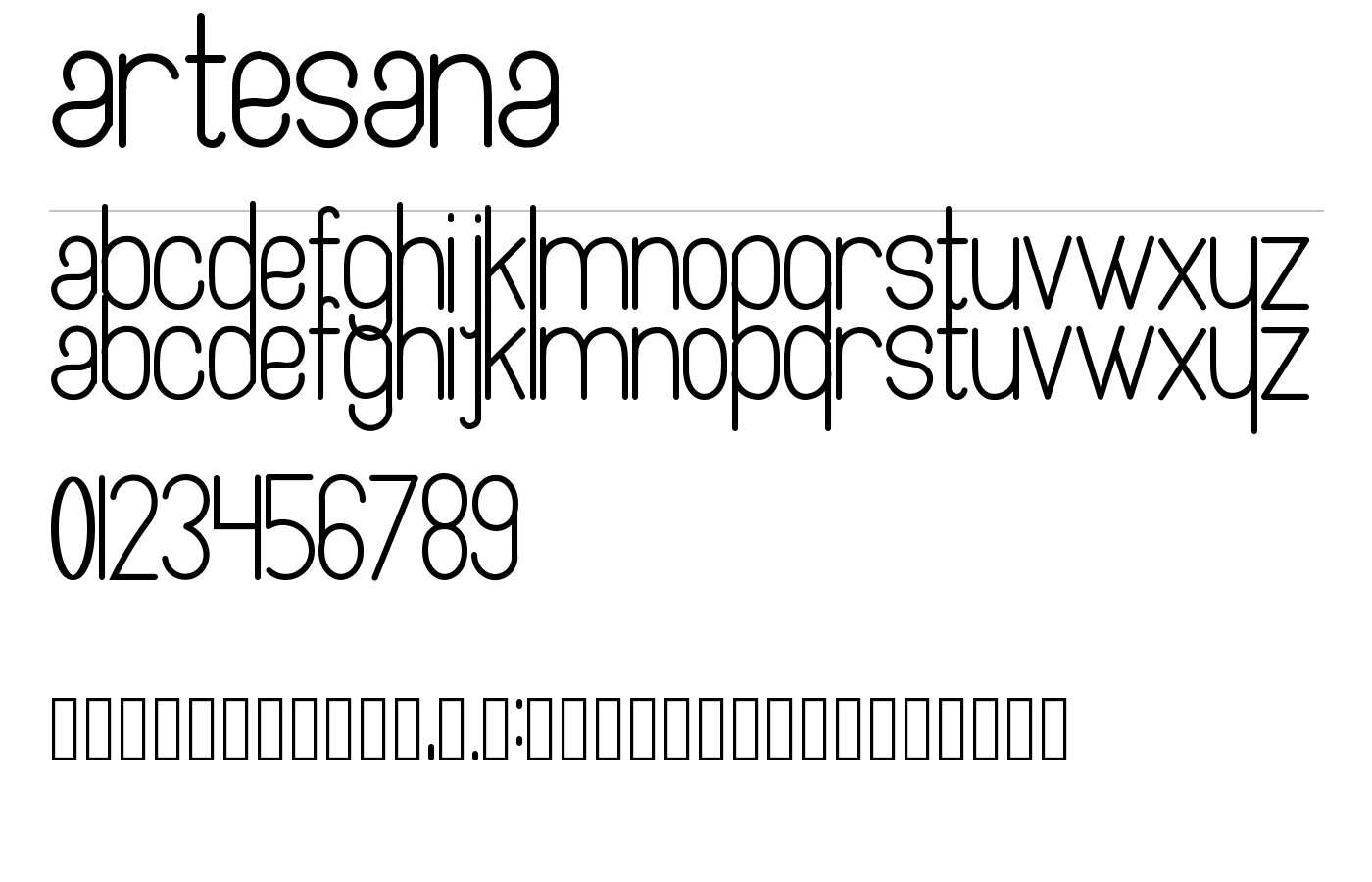
Artesana is a slender, modern sans serif font characterized by its tall, narrow letterforms and consistent, light stroke weight. Its minimalist design and clean, geometric shapes give it a sophisticated yet approachable feel, making it ideal for stylish branding, editorial headlines, and contemporary packaging where clarity and elegance are key. This font’s airy spacing and unique character details add a touch of personality while maintaining readability.
Artesana Font
About Artesana Font